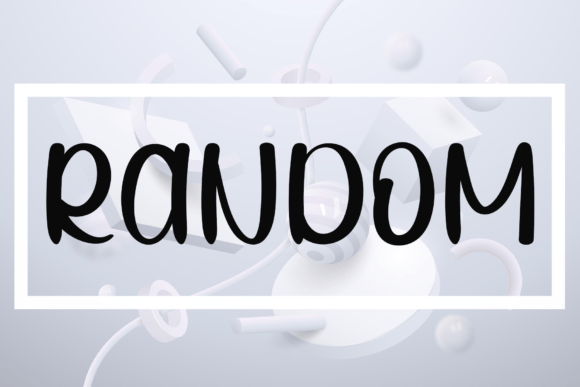
Step into the world of sophistication and charm with Random Font, a stunning script font that will enchant your designs with its captivating curves and elegant strokes. Created by the talented pinkmeca, Random is not just a font; it's an artistic expression waiting to be unleashed.
Unleash your creativity with Random Font, a captivating script that dances across your designs, leaving a trail of elegance and charm. Its meticulously crafted curves and graceful strokes will transform your words into captivating works of art, whether you're crafting logos, invitations, or heartfelt messages.
Leave a lasting impression with Random Font, a font that elevates your designs to new heights of sophistication. Its alluring personality shines through in every letter, adding a touch of magic to your words. Embrace the beauty of Random Font and let your designs speak volumes.